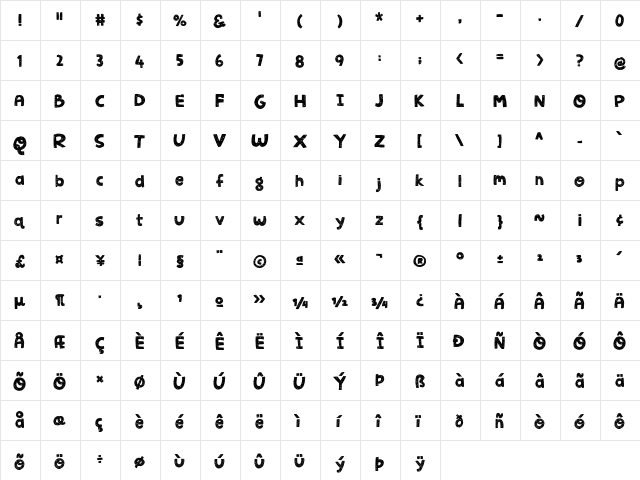
Jellygurp DEMO Regular
| Foundry | Jakob Fischer / pizzadude.dk |
| Designer | Jakob Fischer / pizzadude.dk |
Design Context for Jellygurp DEMO Typeface
Jellygurp DEMO is a composed and adaptable typeface that performs quietly and consistently across a wide range of design contexts.